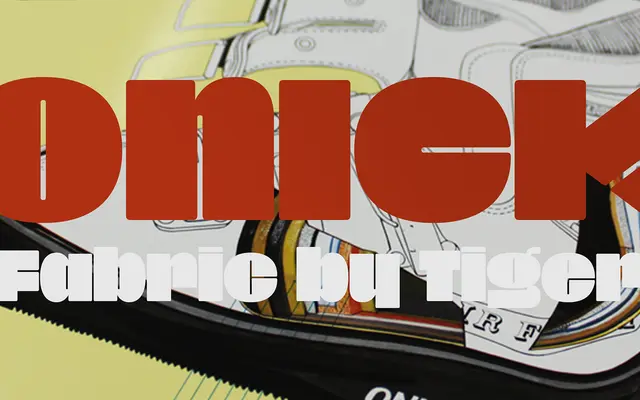
Onick
Dharma Type · Ian Lynam
A custom typeface designed by Ian Lynam specifically for Onitsuka Tiger, made available as a free download via Dharma Type.
Commissioned for the Japanese sportswear brand Onitsuka Tiger, Onick is a purpose-built typeface by Ian Lynam released as a free font. The design is detailed further in an article by Lynam, suggesting considered rationale behind its creation. Available as a single style download from Dharma Type.
Described as a free font designed specifically for Onitsuka Tiger, suggesting a custom grotesque or geometric sans created for brand use; insufficient detail to determine precise subcategory.